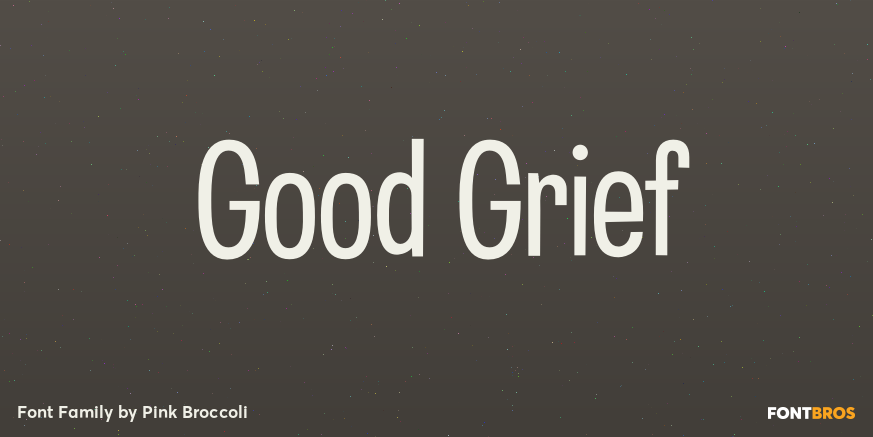
An ever so slightly off kilter sans-serif, Good Grief started as a digitization of a film typeface called Carmel by LetterGraphics. From there, this fun and friendly typeface was taken from its limited character set and fleshed out to a fully functional…